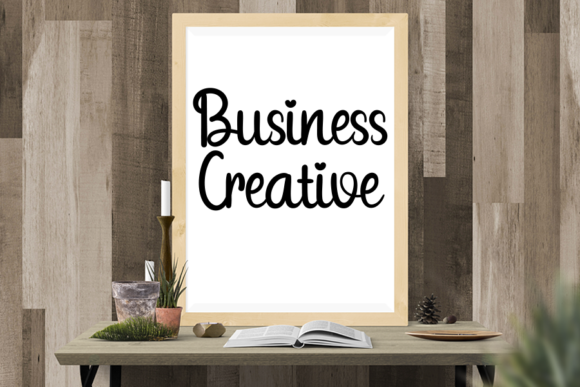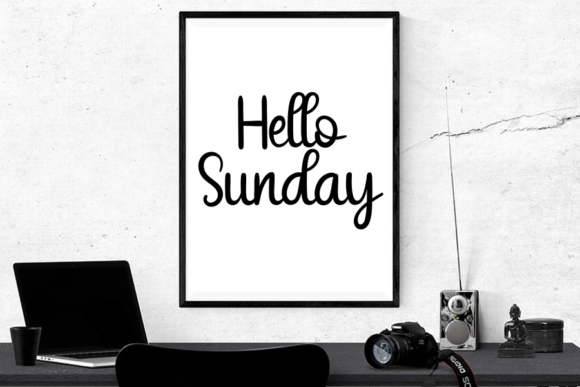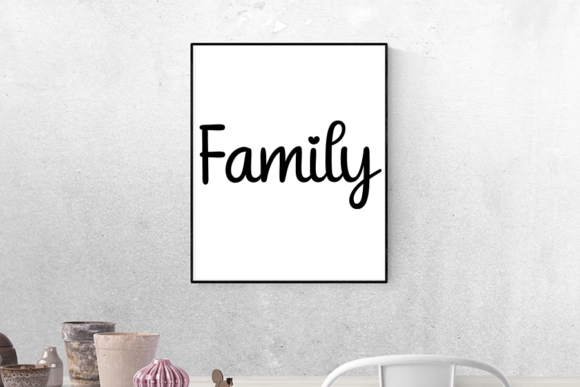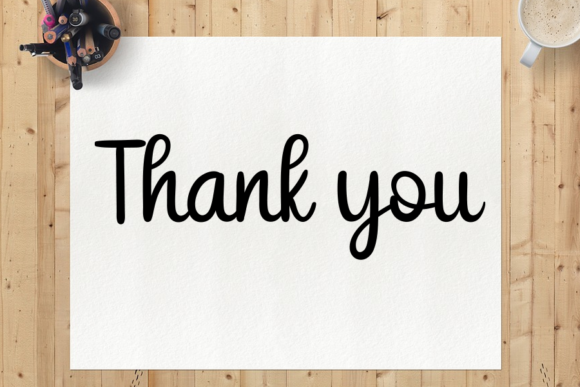
The Enchanting Fishing Font: A Designer’s New Best Friend
I still remember the time I was working on a project for a client who wanted a romantic and whimsical feel. I had a clear vision of what I wanted to create, but there was one major hurdle: finding the perfect font. I scoured the internet, tried out countless fonts, but nothing seemed quite right. That was until I stumbled upon the Fishing Font. It was love at first sight! ✨
So, what makes the Fishing Font so special? Let’s dive into the good stuff and a few quirks I’ve discovered.
- 💕 The romantic and whimsical feel it adds to any project
- ✅ Highly versatile – perfect for greeting cards, headlines, and more
- 🎨 Beautiful handwritten script that stands out from the crowd
- 👍 Easy to read and understand, even in smaller sizes
- 🤔 Some letters may appear a bit inconsistent in size, but this adds to the handwritten charm
- ⚠️ Not ideal for body text due to its script nature; best used for headlines or short paragraphs
One of the standout features of the Fishing Font is its support for OpenType features. This includes access to stylistic alternates, ligatures, and glyphs that can significantly enhance your typography. For example:
- Stylistic alternates can offer different versions of letters or numbers for varied looks
- Ligatures can combine letters for a more fluid and artistic appearance
- Glyphs can add decorative elements or alternate characters to your text
The Backstory of Fishing Font
The Fishing Font was designed with the intention of capturing the essence of handwritten scripts. Inspired by the fluidity and natural flow of handwriting, this font aims to bring a personal touch to digital and print media. While the exact designer may not be well-known, the font’s charm lies in its ability to evoke emotion and add a human element to designs.
| Font Name | Fishing Font |
| Author | cans studio |
Q: Is the Fishing Font suitable for body text?
A: While it’s technically possible, the Fishing Font is best used for headlines, titles, or short paragraphs due to its script nature and readability.
Q: Does the Fishing Font support OpenType features?
A: Yes, the Fishing Font supports OpenType features, including stylistic alternates, ligatures, and glyphs, which can enhance your typography.